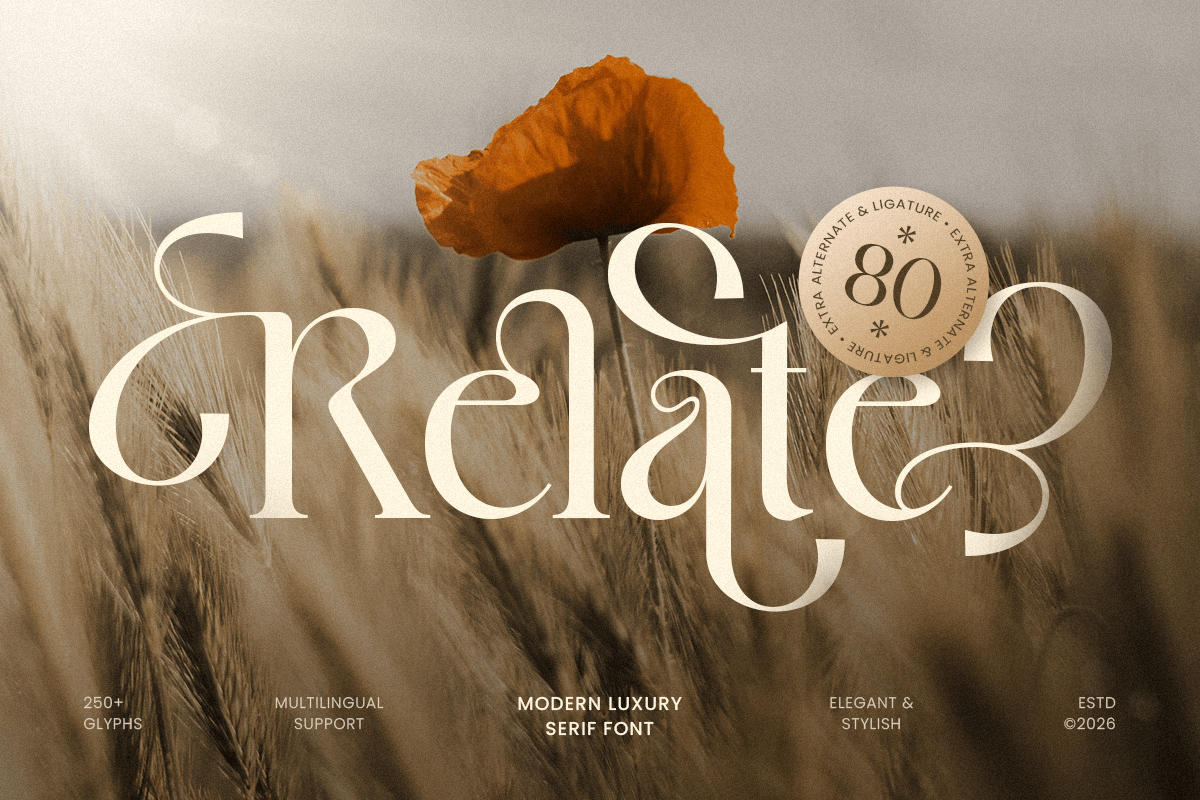
Relate
-Modern Decorative Serif Font
Relate - Modern Decorative Serif Font
Relate is a modern luxury serif font designed to deliver refined elegance with a clean contemporary edge. Featuring polished serif details, balanced proportions, and a confident visual rhythm, this typeface creates a premium tone that feels stylish, timeless, and instantly brand-ready.
Built for high-end typography, Relate works beautifully across logos, wordmarks, brand identity systems, editorial layouts, magazine covers, website headers, packaging, labels, invitations, signage, presentations, and upscale marketing visuals. Its elegant serif structure ensures readability while adding a luxurious presence across both digital and print design.
Whether you’re building a fashion identity, developing a beauty brand, designing premium packaging, or crafting a sophisticated editorial concept, Relate provides a modern serif foundation that makes your typography feel polished, professional, and unforgettable.
Inspiration Behind Relate
Relate is inspired by contemporary luxury branding and modern editorial typography—where refined serif structure, clarity, and visual balance define premium communication. The design focuses on elegant rhythm and timeless sophistication to support upscale identities with a clean, modern feel.
Relate Font Features:
• Modern luxury serif letterforms with refined premium character
• Perfect for logos, branding systems, and editorial headline typography
• Clean structure for elegant layouts and strong readability
• Luxury logos, wordmarks, and premium brand identity systems
• Fashion, beauty, skincare, fragrance, and boutique branding
• Editorial layouts, magazine covers, lookbooks, and headlines
• Premium packaging, labels, invitations, and elegant stationery
• Social media campaigns, websites, presentations, and marketing assets
Elevate your branding with Relate—a modern luxury serif font built for timeless, high-end identity design. ✨